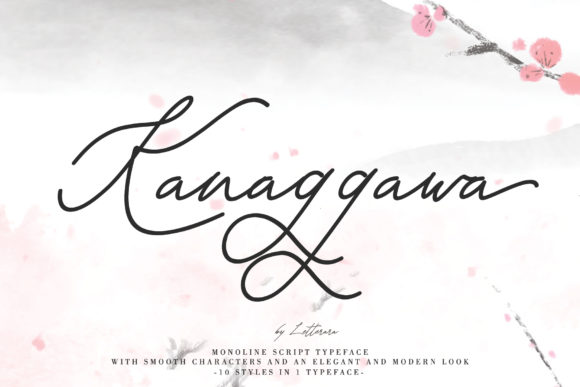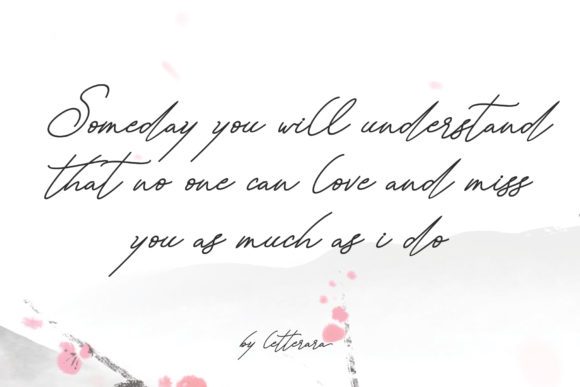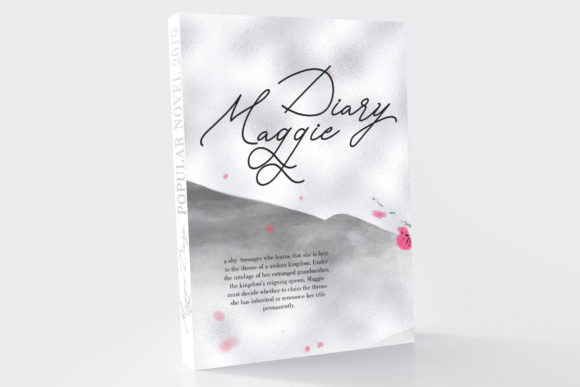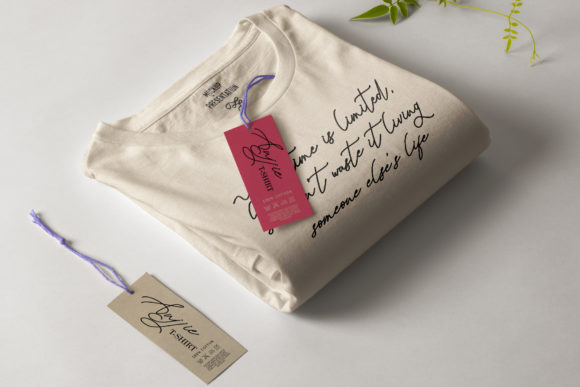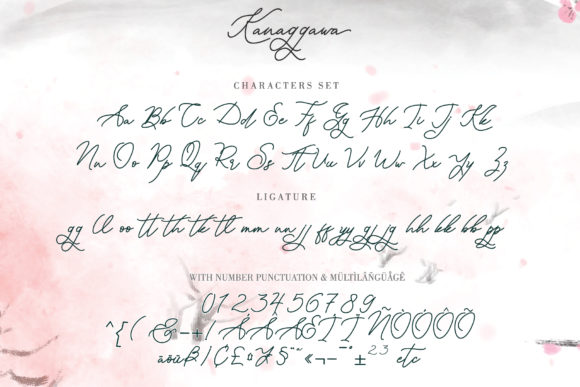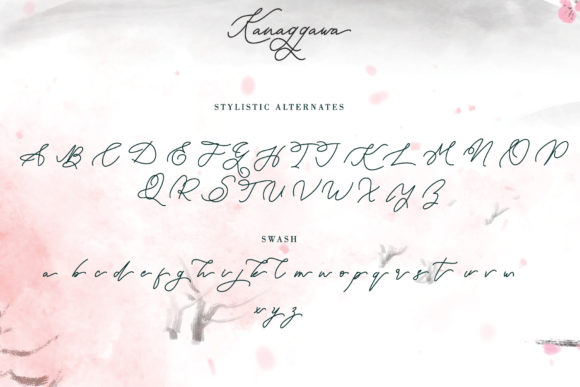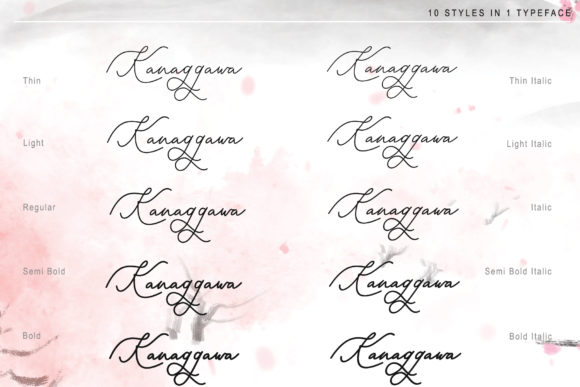
HomeScript FontsKanaggawa Font Script Fonts Kanaggawa Font FacebookXPinterestWhatsApp Kanaggawa Font Poster 2 Kanaggawa Font Poster 3 Kanaggawa Font Poster 4 Kanaggawa Font Poster 5 Kanaggawa Font Poster 6 Kanaggawa Font Poster 7 About Kanaggawa Font Kanaggawa is a simple and elegant script font with bold swashes. Get inspired by its unique and modern look. DOWNLOAD NOW People also explored Sanluna Font Camila Raindrop Font Arsenio Script Font Pegasus Font Bauble Snowflake Font Heather Stone Bella Canvas 3001 Mockup New Normal Font Xander Bruce Font Showtime Font 339 0 TagsKanaggawa Font Previous articleJennie FontNext articleCamilla Ahoy Font LEAVE A REPLY Cancel reply Comment: Please enter your comment! Name:* Please enter your name here Email:* You have entered an incorrect email address! Please enter your email address here Website: Save my name, email, and website in this browser for the next time I comment. Personal Use Free Monofonto Personal Use Free Read more about this font Gagalin Personal Use Free Read more about this font Boston Traffic Personal Use Free Read more about this font Fibon Personal Use Free Read more about this font BLOG Fonts That Capture the Spirit of New York City New York City is more than just a place—it’s an experience, a rhythm, a visual language... Top 7 Google Fonts Alternatives for Faster and Privacy-Friendly Web Design (2025) Best Fonts for T-Shirt Design – Top 2025 Picks 5 Fonts That Will Dominate Design Trends in 2026